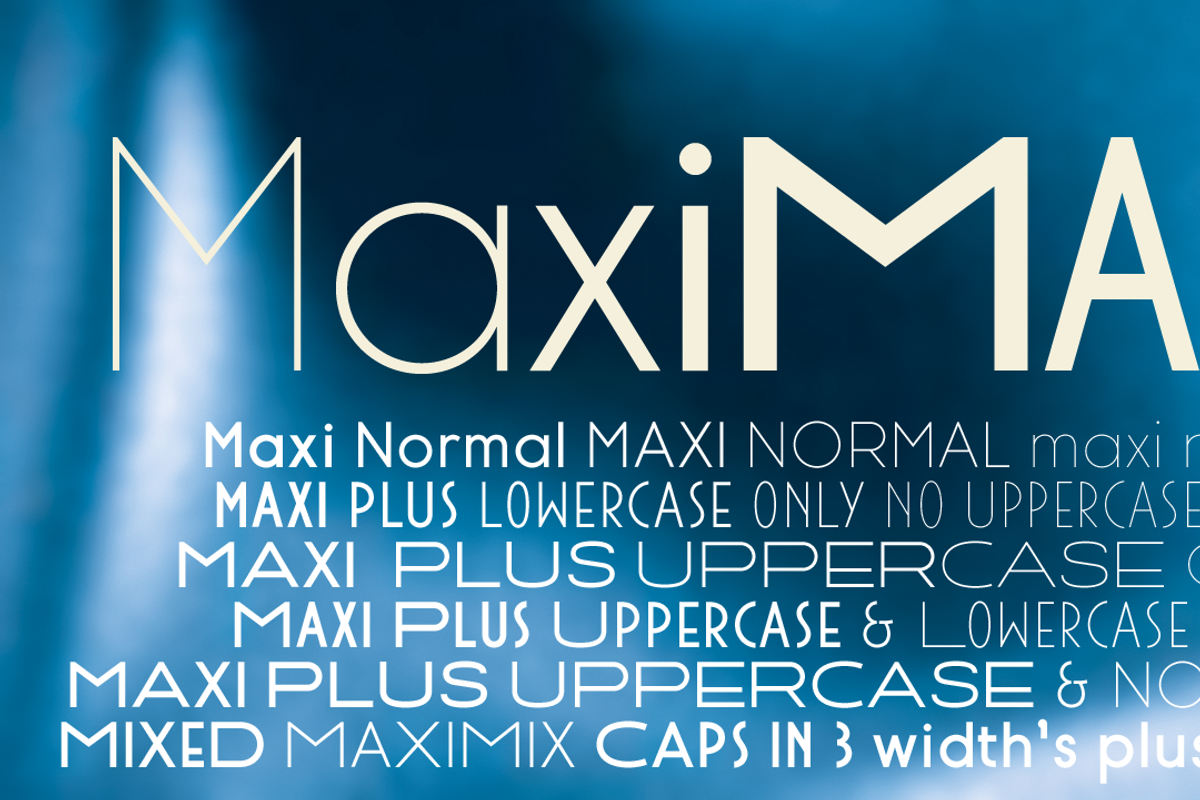
Maxi Fonts Free Download refers to a bold, modern typeface collection known for its impactful style and versatile use. Featuring clean lines, geometric shapes, and strong letterforms, Maxi Fonts are perfect for headlines, branding, posters, digital ads, packaging, and editorial design.
Whether you're using a single weight or pairing styles for contrast, Maxi fonts are built to make your typography stand out with clarity and confidence. They’re well-suited for both minimalist layouts and dynamic, high-energy visuals.